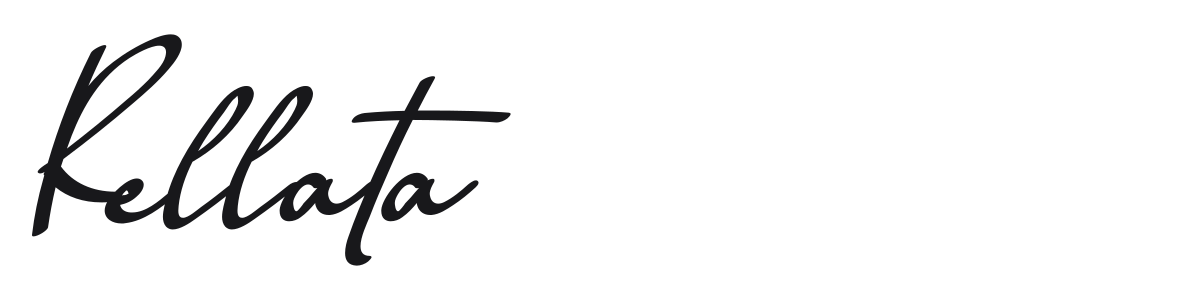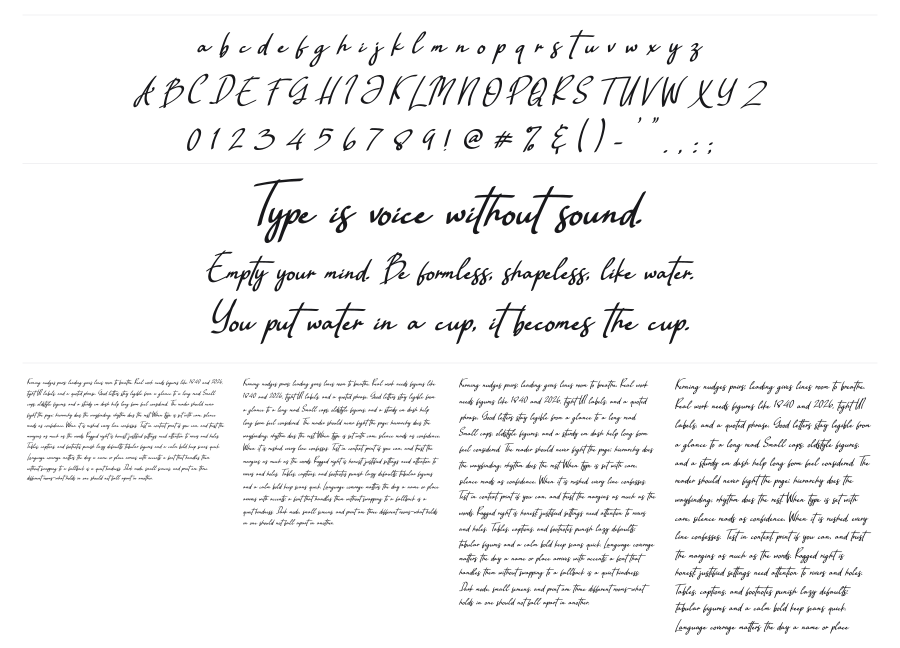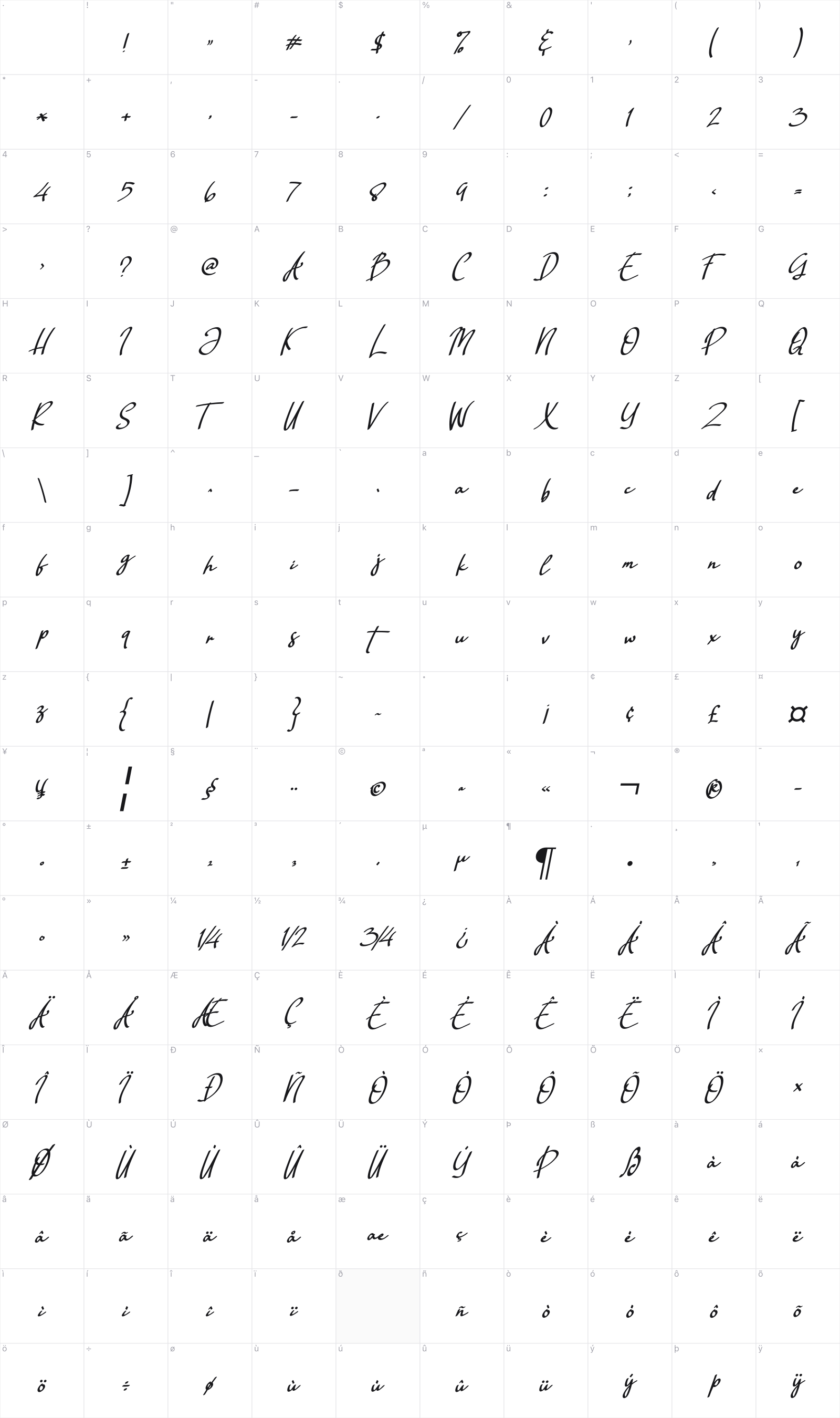
Rellata
Rellata is a casual connected script with the spontaneous energy of a well-practiced pen. The varying stroke contrast and loose, sweeping rhythm give it a relaxed authenticity that sits between calligraphy and everyday handwriting. It works at large sizes where the flowing connections and expressive descenders can breathe.